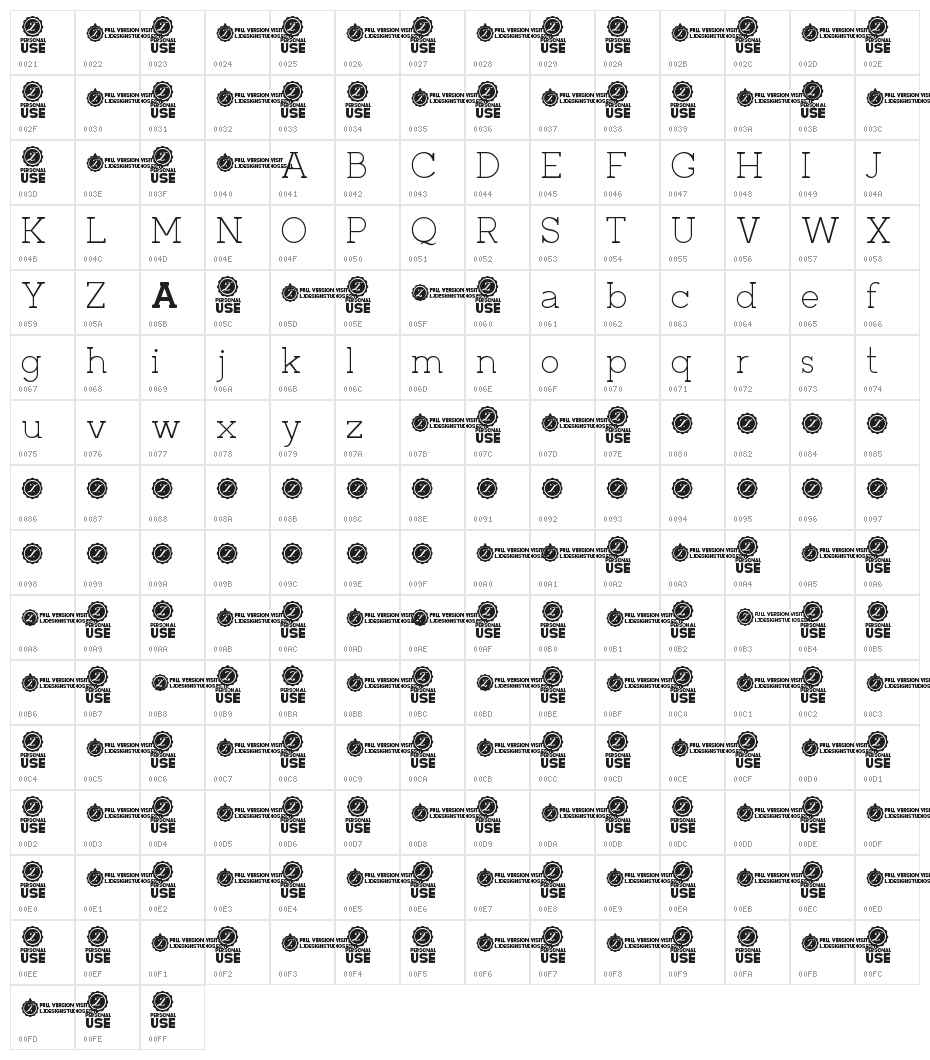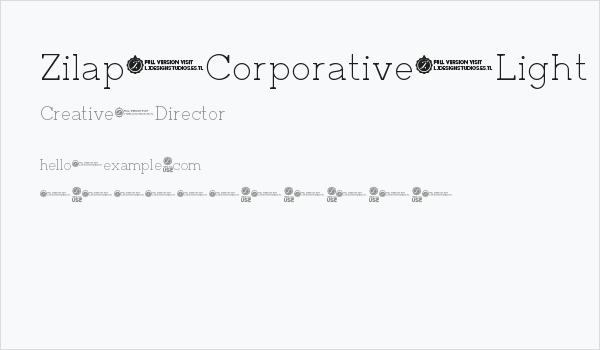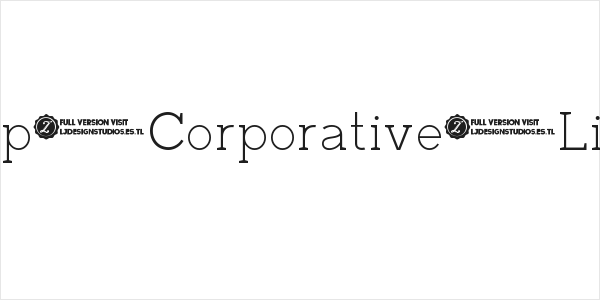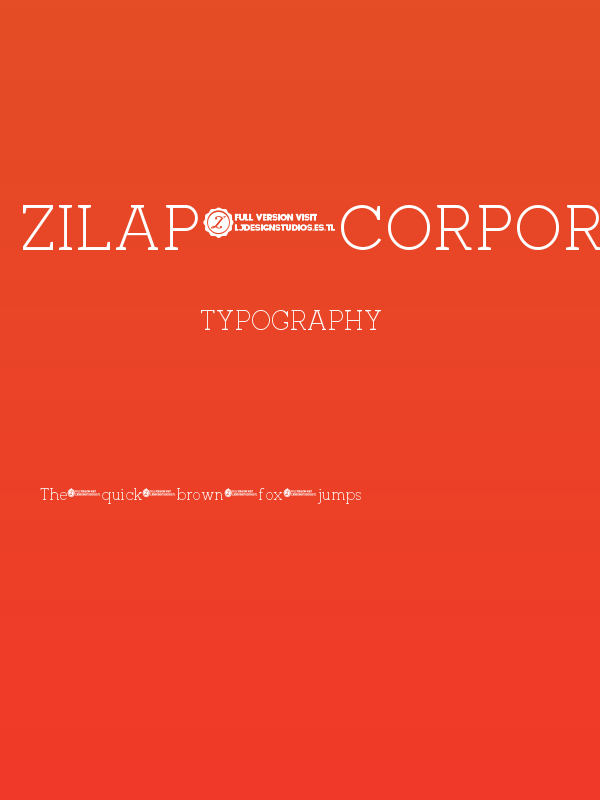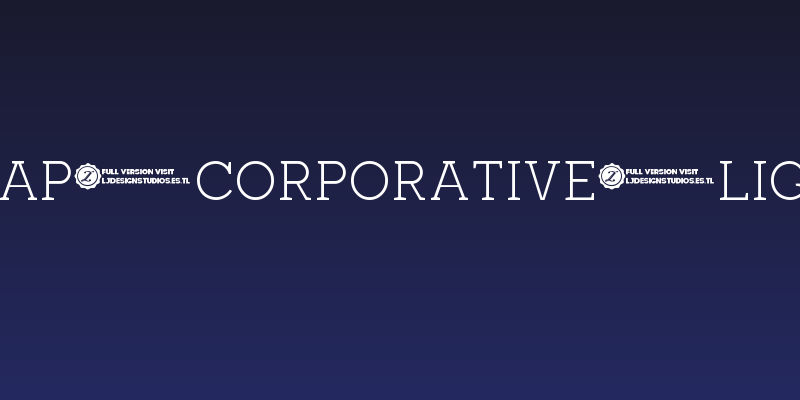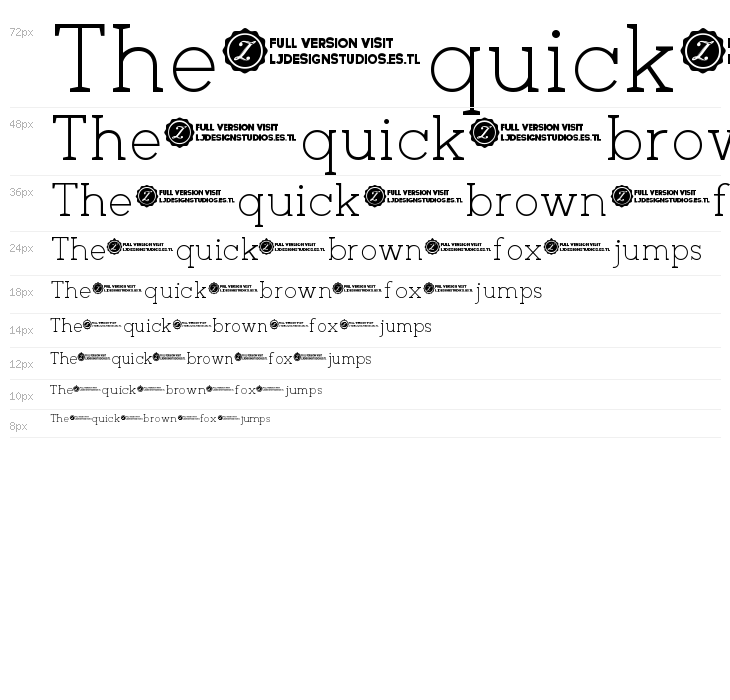
Zilap Corporative Light Font
This font features a clean and modern design with a focus on readability and elegance. The characters are well-proportioned with a slight contrast in stroke thickness, giving it a refined appearance. The uppercase letters are tall and commanding, while the lowercase letters maintain a consistent flow, making it suitable for both headlines and body text. The numerals are clear and distinct, ensuring easy readability. Special characters are designed with the same attention to detail, providing a cohesive look across all glyphs.
Proposed ProjectsIdeal for corporate branding, editorial design, and digital interfaces where clarity and sophistication are required.